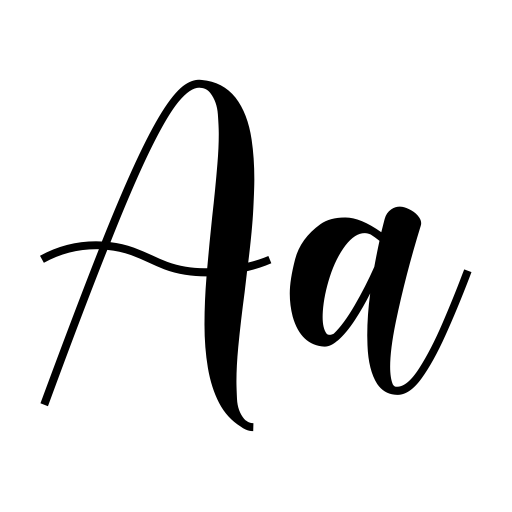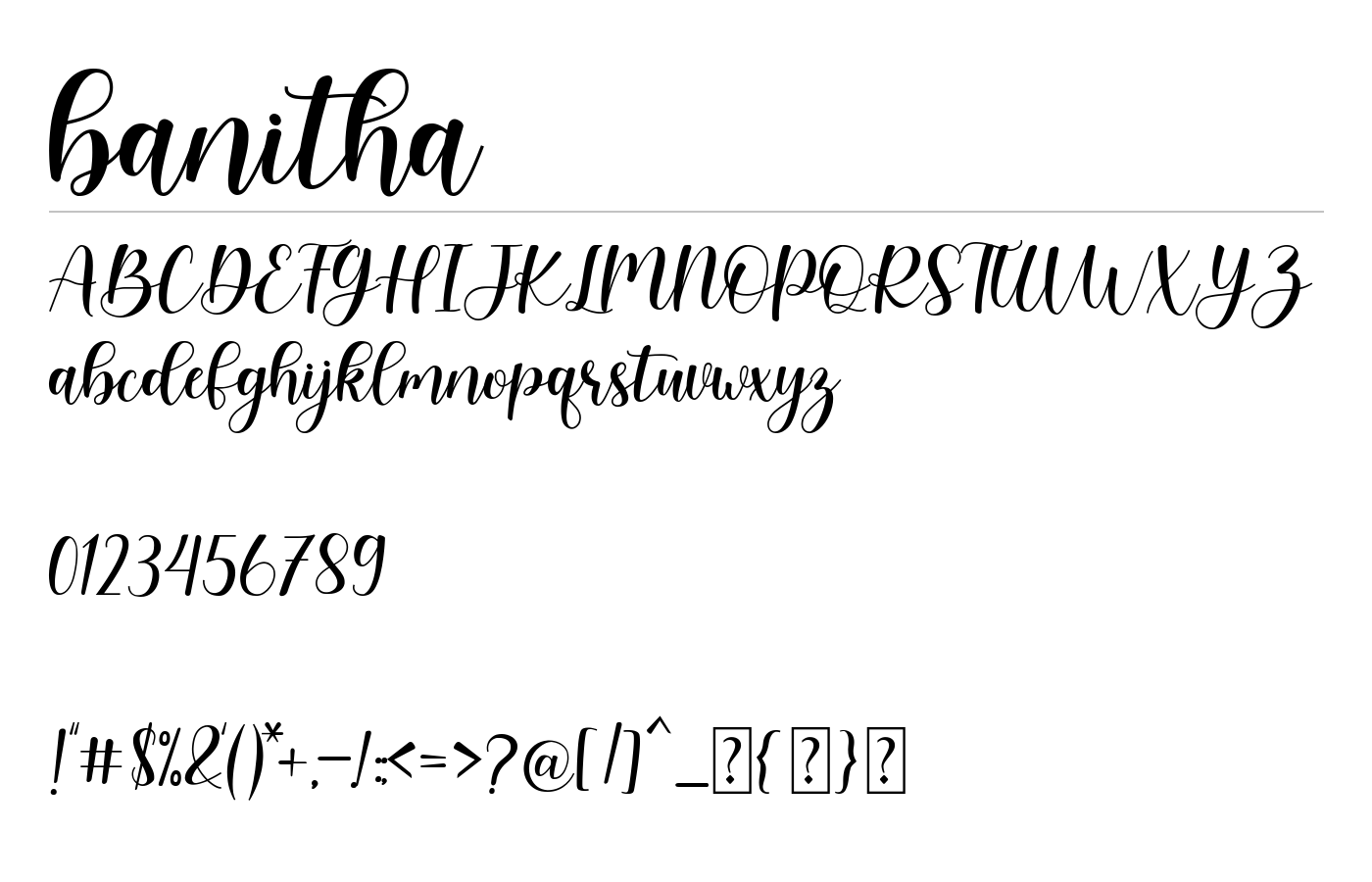
Banitha is a graceful script font with a smooth, flowing style that feels elegant and modern, featuring a balanced contrast of thick and thin strokes. Its cursive letterforms, with delicate loops and swashes, make it ideal for creative branding, invitations, and stylish headlines where a touch of sophistication and warmth is desired. This font works beautifully for fashion, beauty, and lifestyle projects, adding charm and personality to any design.
banitha Font
About banitha Font